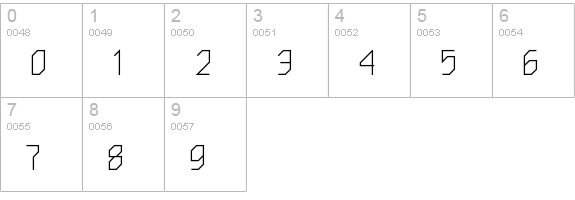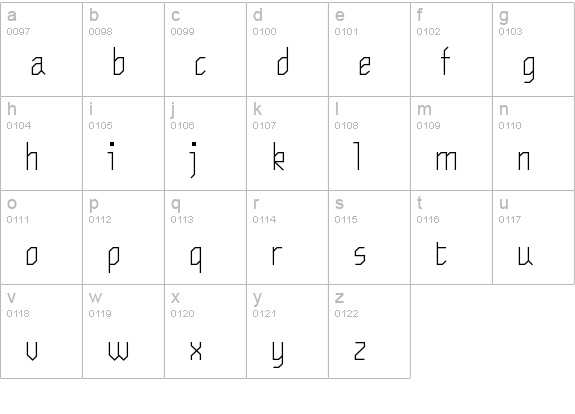
Whichit font is a stunning typeface that adds a touch of elegance and modernity to any design project. With its sleek and sophisticated design, it is the perfect choice for logos, branding materials, headlines, and more. What sets Whichit font apart is not only its exceptional aesthetics but also its accessibility. This font is available for free, allowing designers and creatives to easily incorporate it into their work without any financial constraints. Whether you're a professional designer or just starting out, the availability of this font for free ensures that you can enhance your designs with a premium quality typeface without breaking the bank. To access the Whichit font, simply head over to FontsMarket.com, a trusted source for high-quality fonts. The website offers a vast collection of fonts, including Whichit, all available for free download. FontsMarket.com is committed to providing designers with the resources they need to bring their visions to life, and Whichit font is a prime example of their dedication to quality and accessibility. So why wait? Take advantage of this incredible opportunity to elevate your designs with the stunning Whichit font. Download it for free today at FontsMarket.com and unleash your creativity like never before.